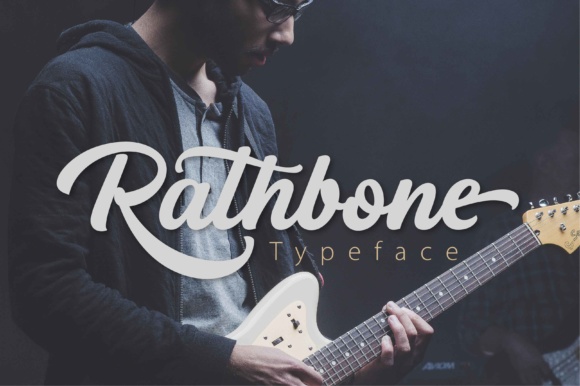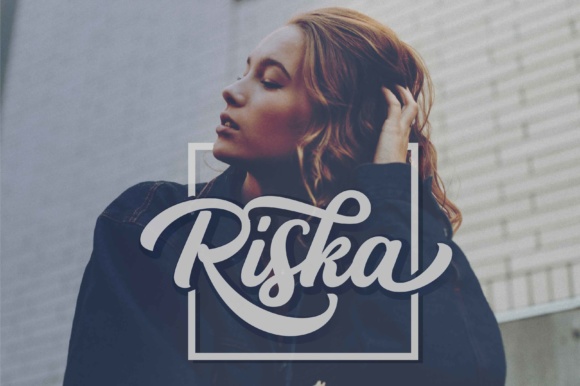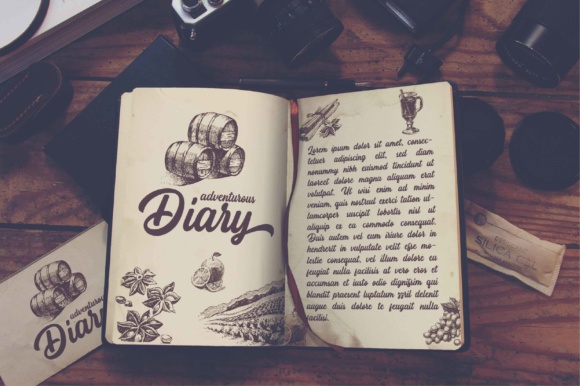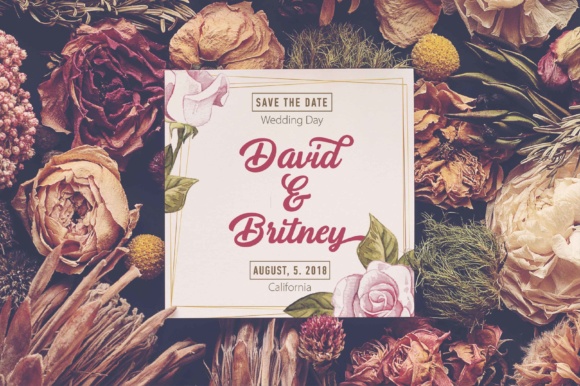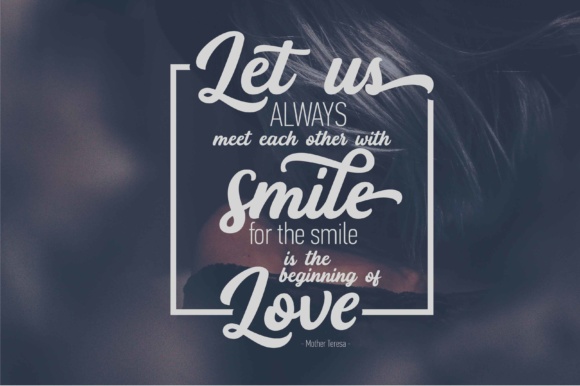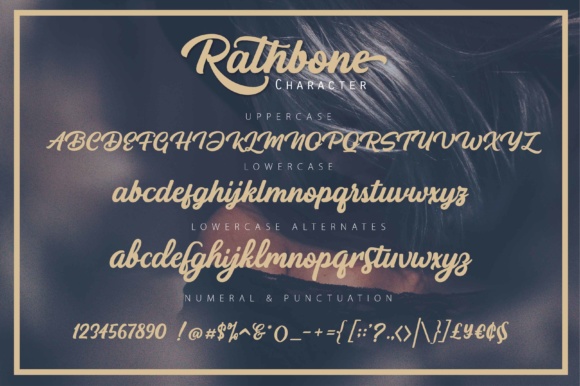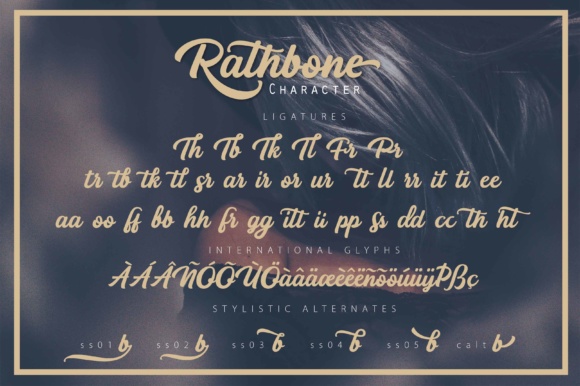
Rathbone Font
About Rathbone Font
Rathbone is a gorgeous and bold swashy font, ideal for use in headlines in a ton of different project types! This font has a versatile look, and can work in alternative, grungy designs or romantic and simple projects.